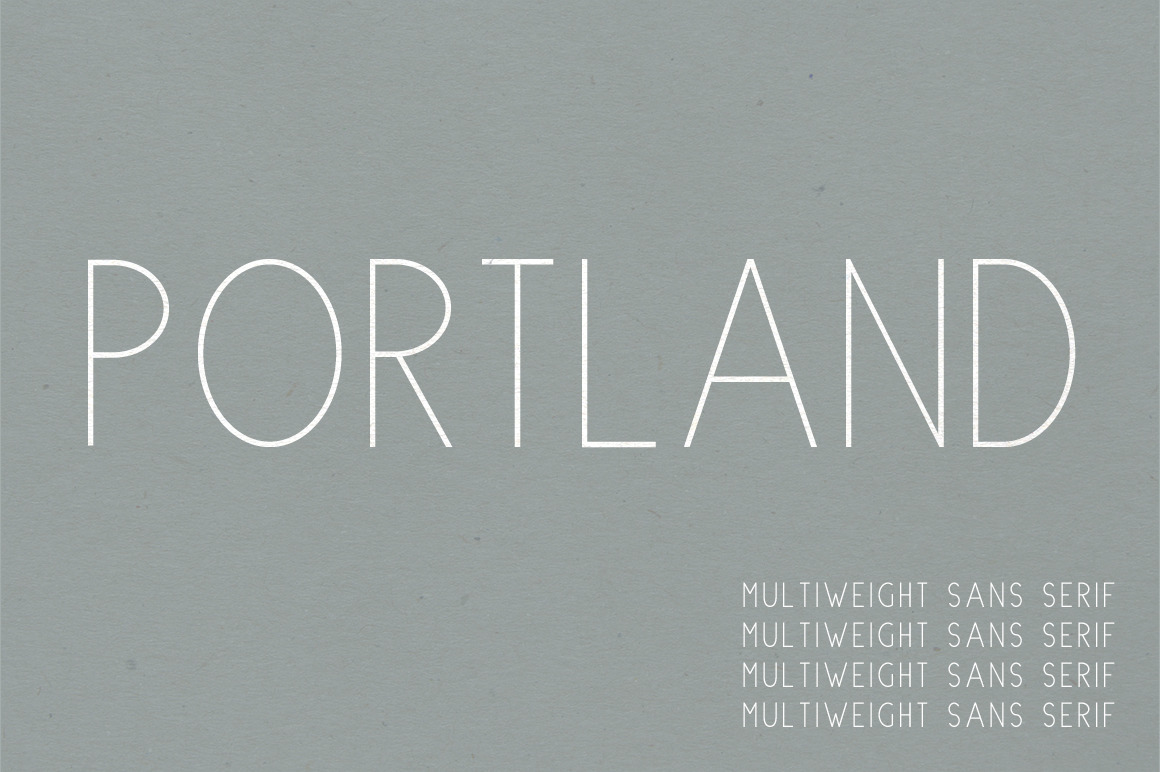
Portland is a simple all-caps font that does Kanye's Pablo well. ;) But in all seriousness, it's a beautiful option for the all caps layout that's currently trending! (If you love this font, check out Athens - a versatile & classic sans-serif - on our main page!)
Now with non-English characters via the Glyphs panel!